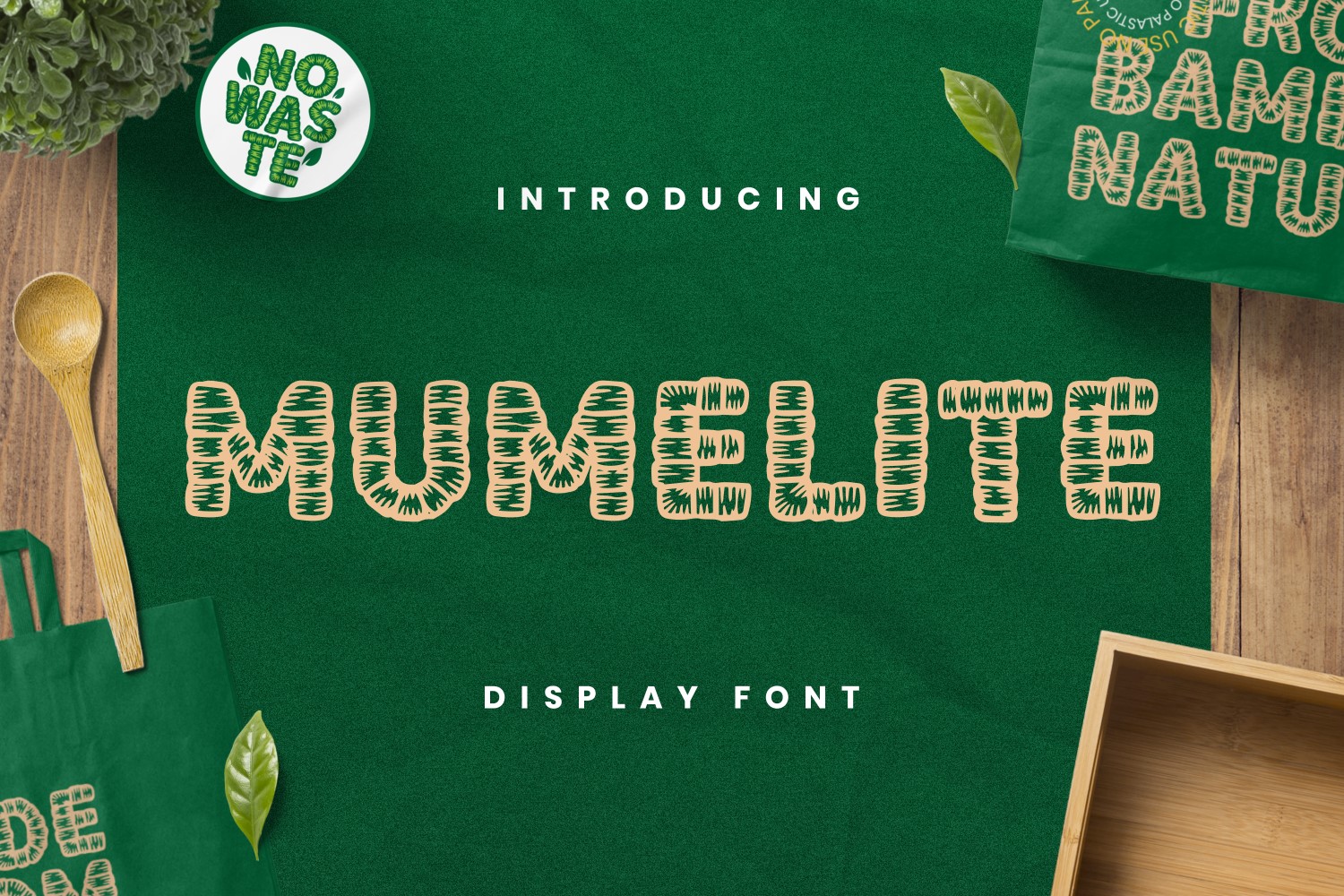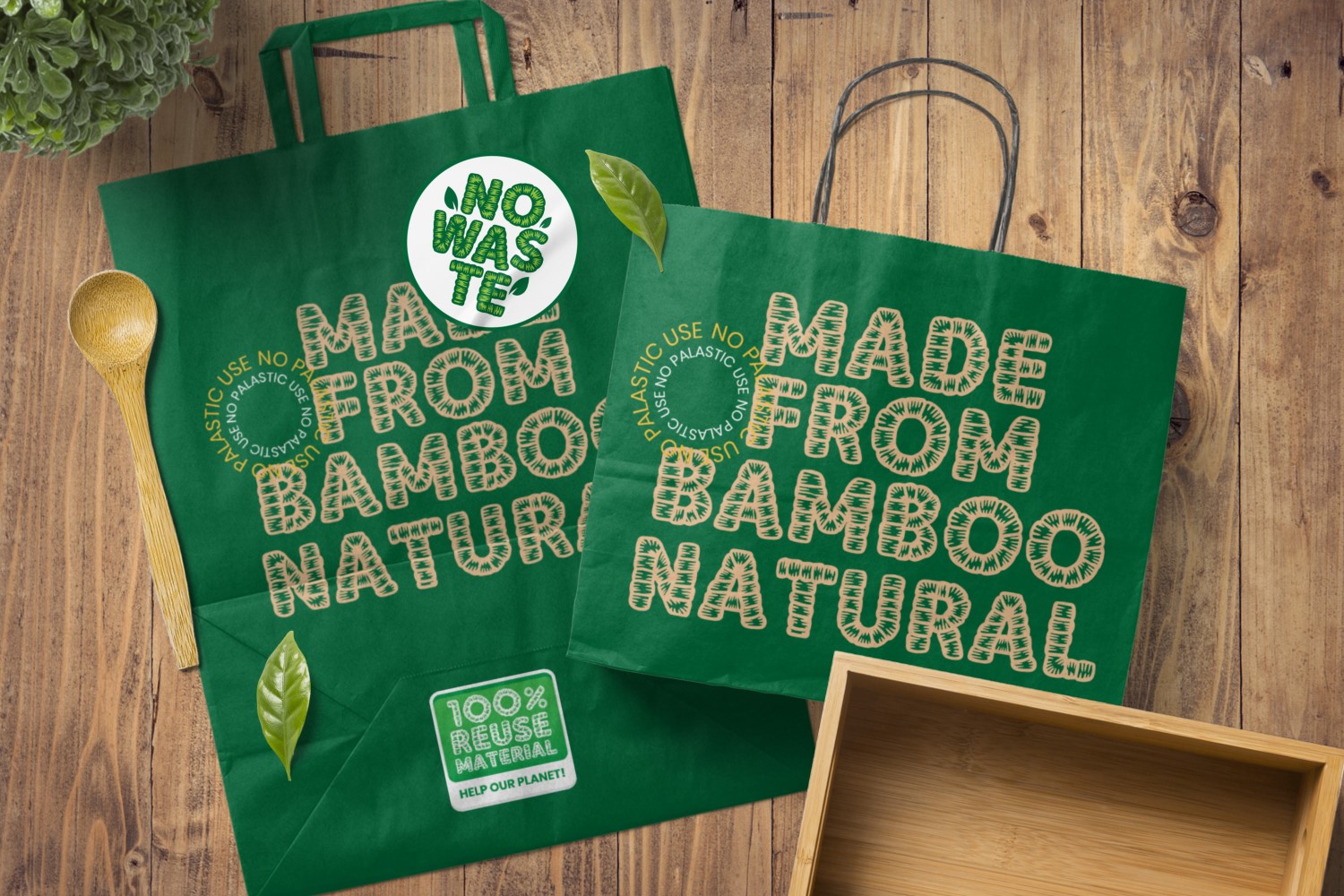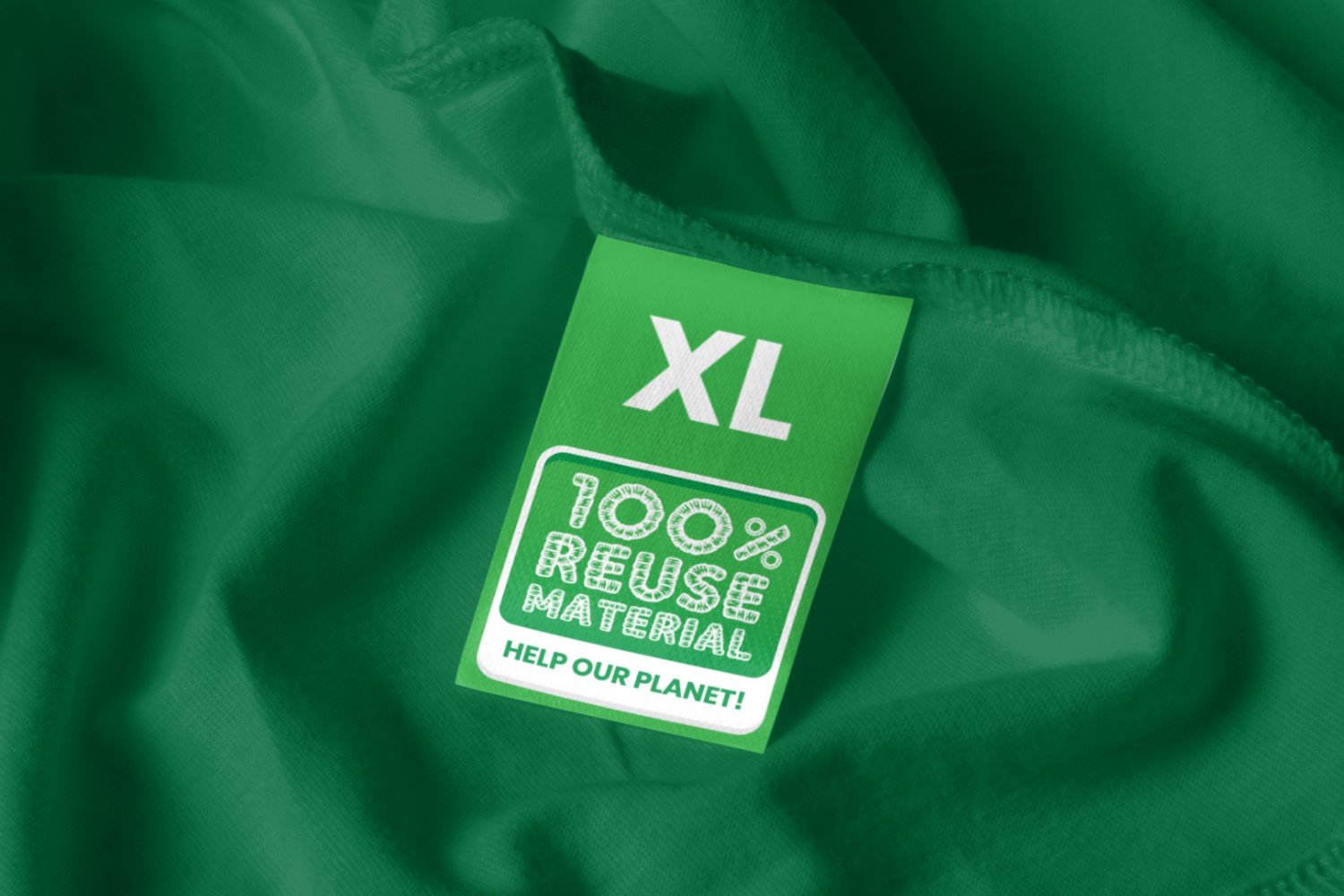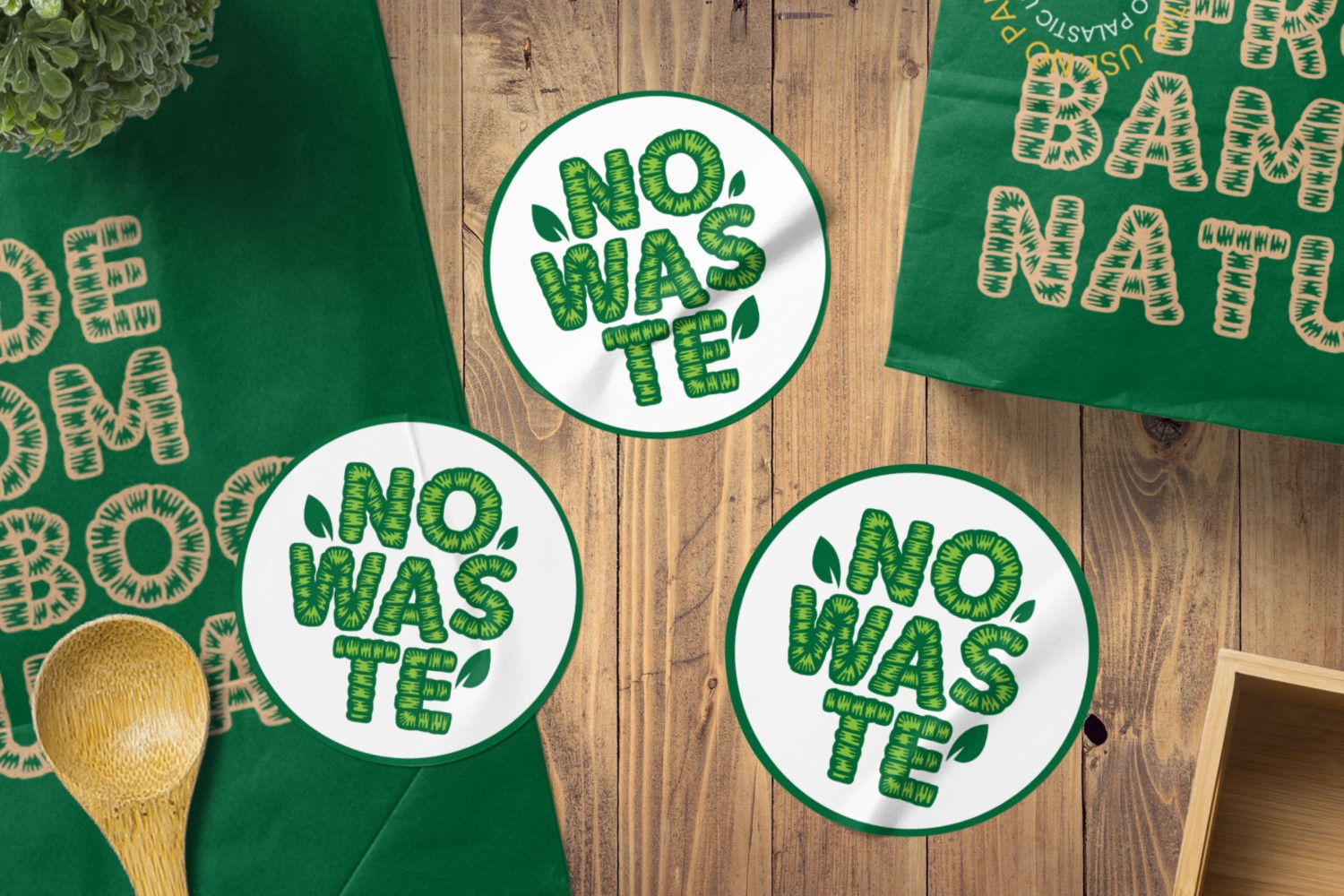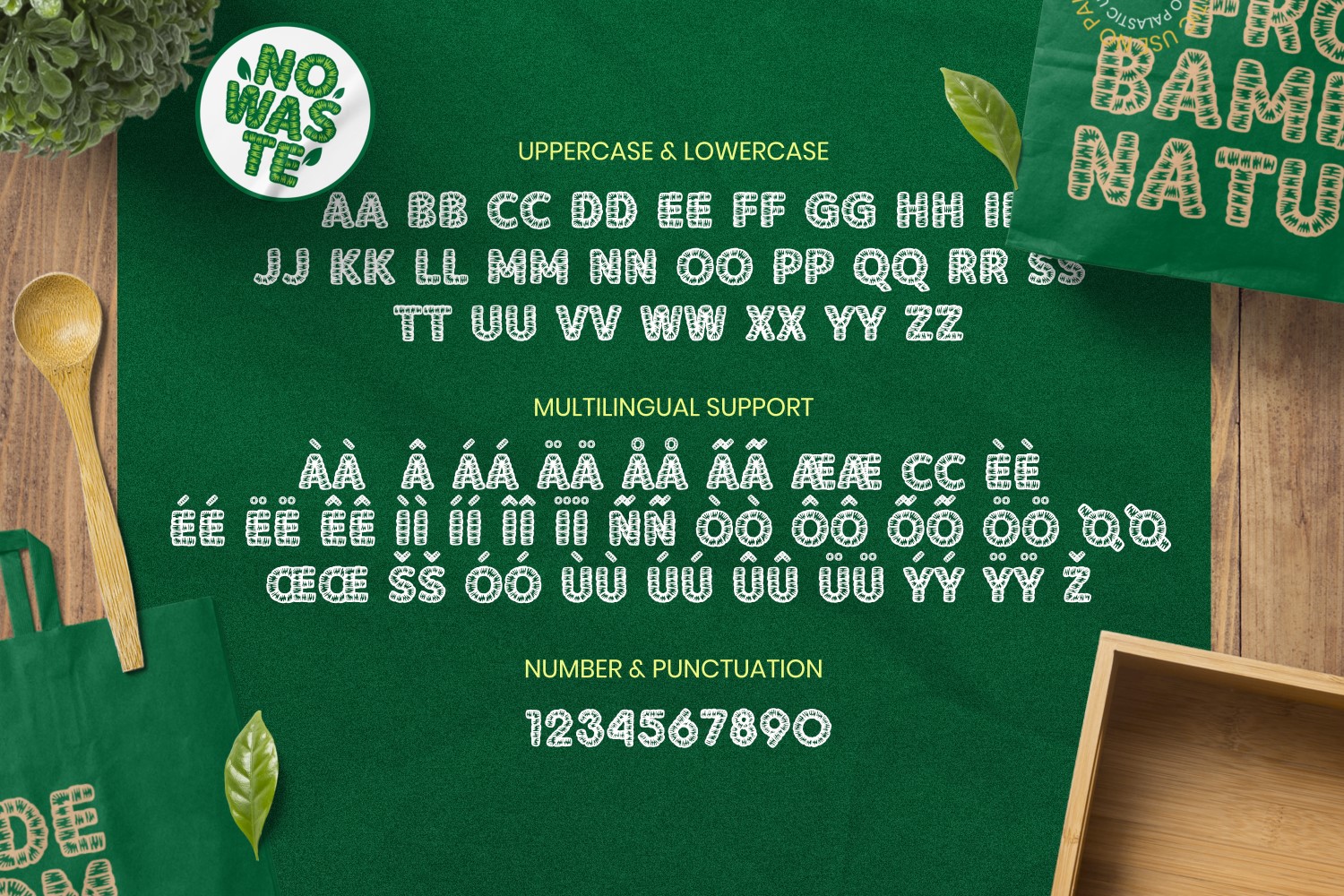
Mumelite is a playful eco-themed display font inspired by natural elements and sustainable living. Its handcrafted look, combined with bamboo-texture strokes and rounded forms, makes it a perfect choice for eco-friendly product packaging, organic branding, zero-waste campaigns, and nature-conscious merchandise. The font exudes a rustic charm that immediately communicates care for the planet and a green lifestyle.
Fully equipped with uppercase, lowercase, numbers, punctuation, and multilingual support, Mumelite is versatile for both digital and print projects. Whether you’re designing eco-bags, reusable labels, or organic food branding, this font adds authenticity and earthy warmth to every message.
MUMELITE